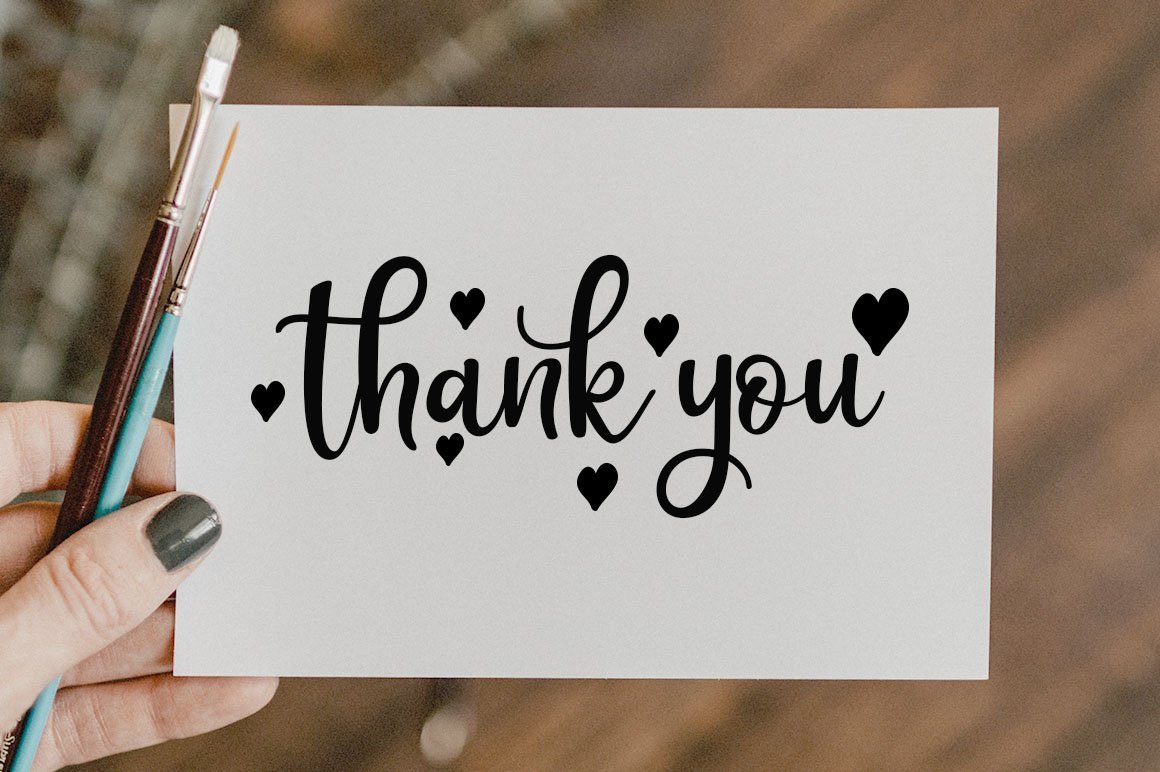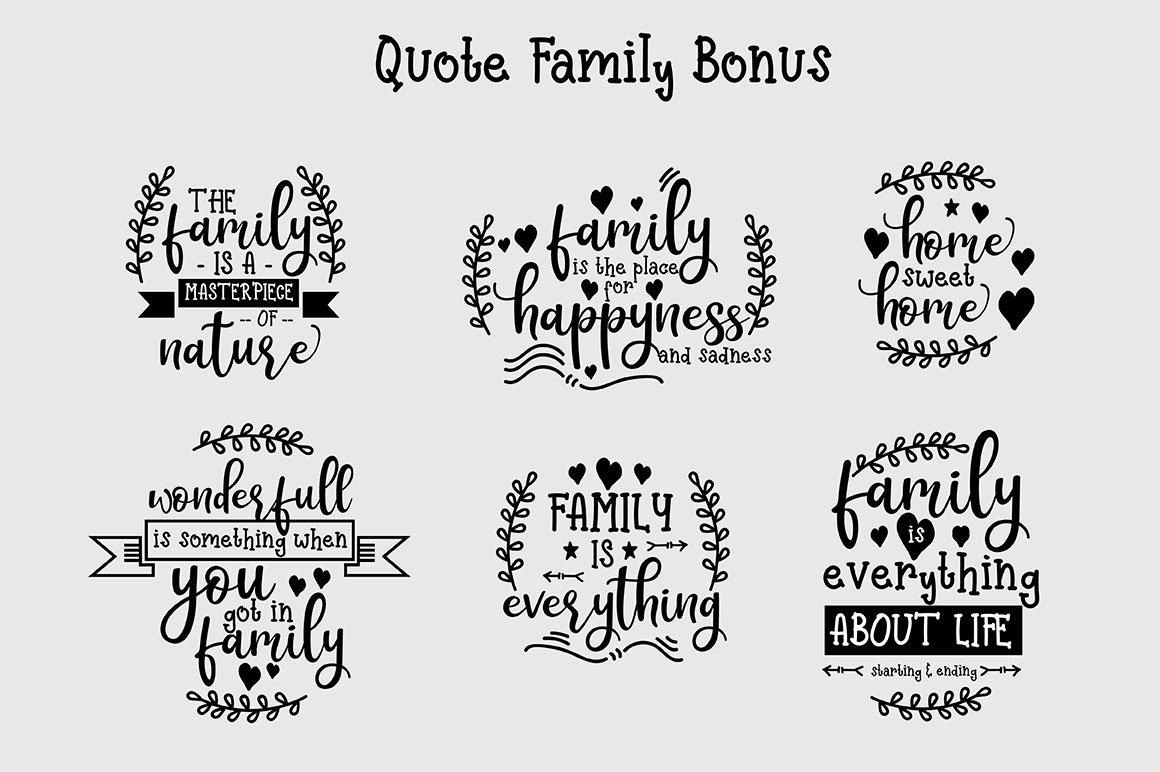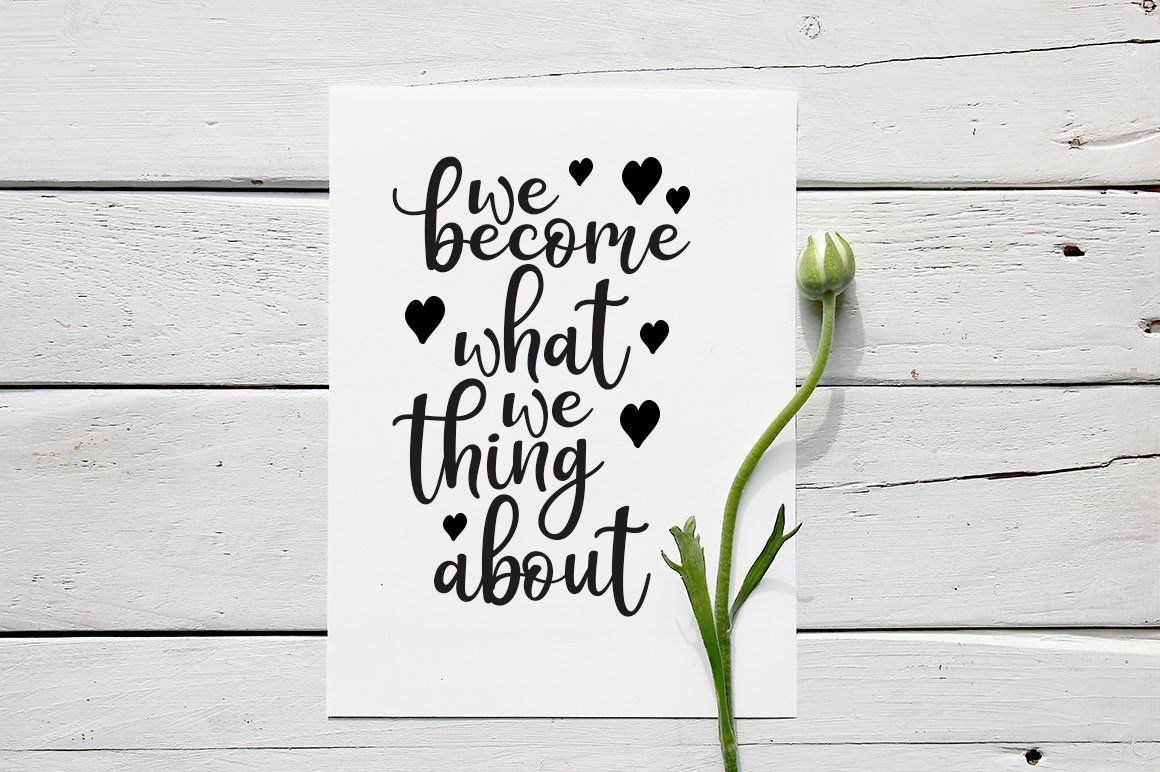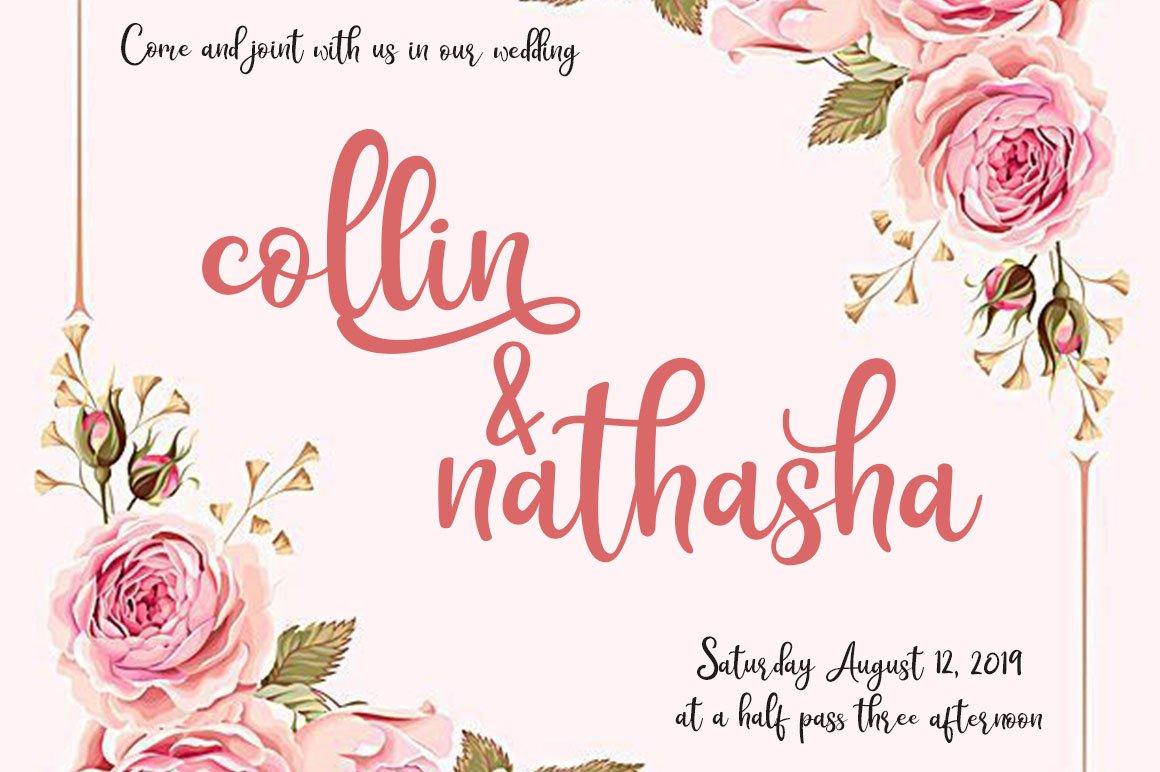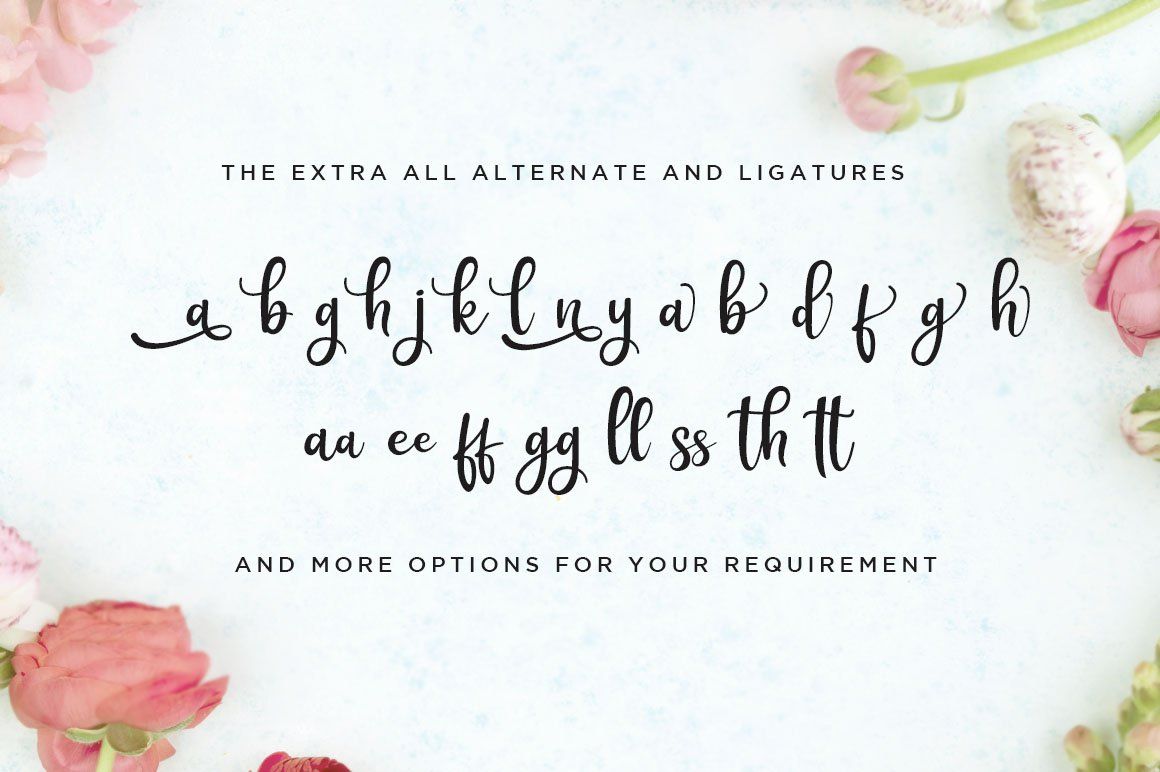
The Rothena Script
About The Rothena Script
I just present My new product with the name Rothena. Hand-lettered with style, Rothena Script is a must have for all your design needs. Perfect for greeting cards, branding, stationery design, social media, packaging, magazine layouts, prints and more! Utilize all caps for a completely alternate style, or mix and match lowercase script + all caps for creative designs. Rothena Script has a variety of unique, coded features to create compelling, handmade outcomes: 4 stylistic alternates, 5 initial characters, 4 end characters, 1 discretionary ligature and 25 standard ligatures. Multilingual support. PUA Encoded.  Included OTF file, Rothena Script font. Happy Designing! Note : The quotes eps file is available to editable text. If You interest use the funny serif font please visit at here : https://fontbundles.net/haksen/232180-masha-duo-handlettered-fonts This is the personal license font that can be used for all personal needs. If you want to use this font on items you are going to sell or on anything promoting your business, please purchase the extended license version.